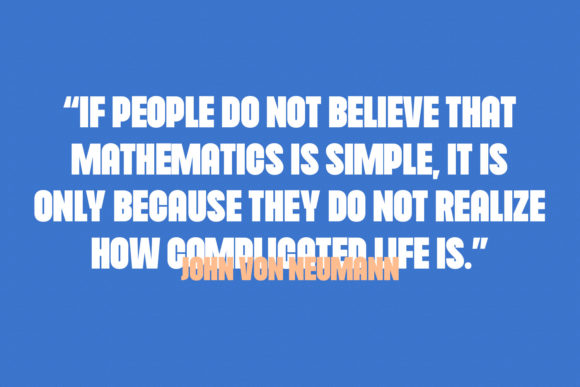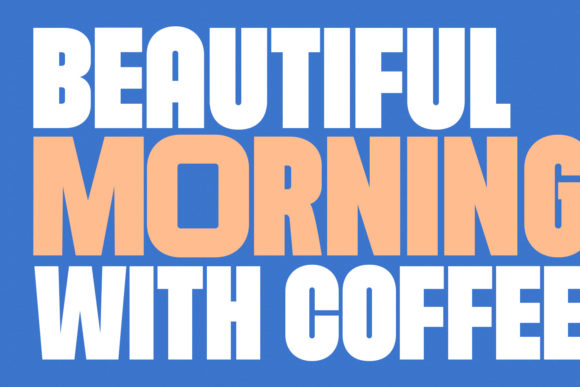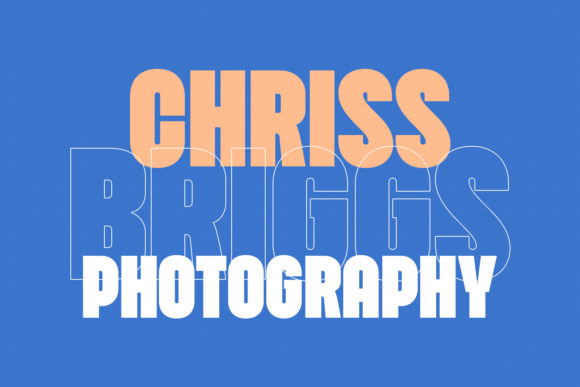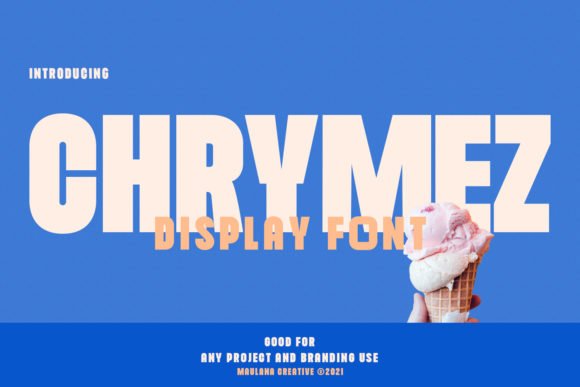
Introduction to Chrymez Font
Chrymez is a cool, bold and thick lettered display font.
It is ideal for writing web designs, business cards, or pretty much anything else that requires an assertive touch .